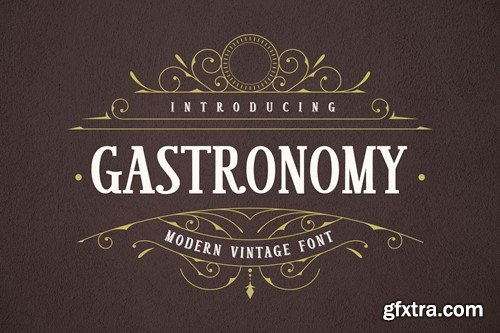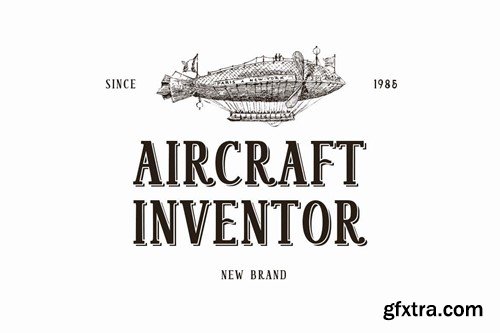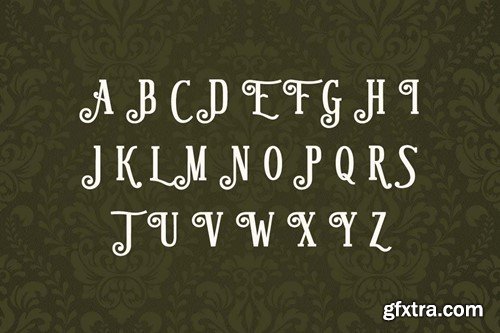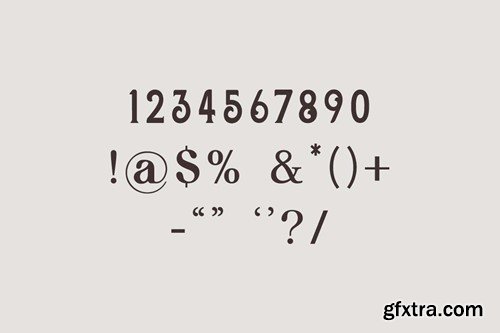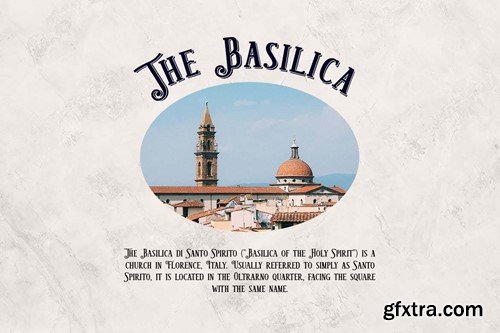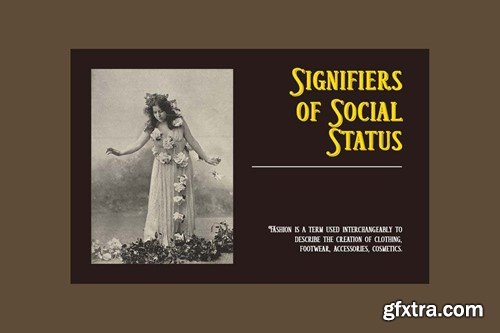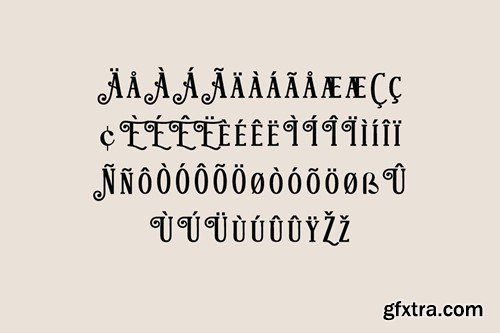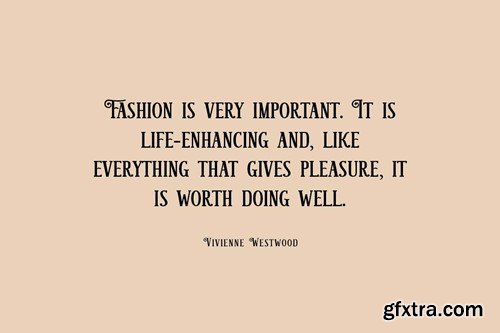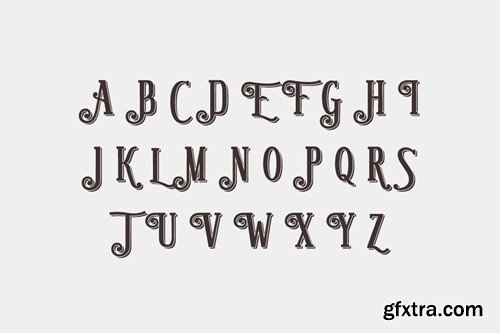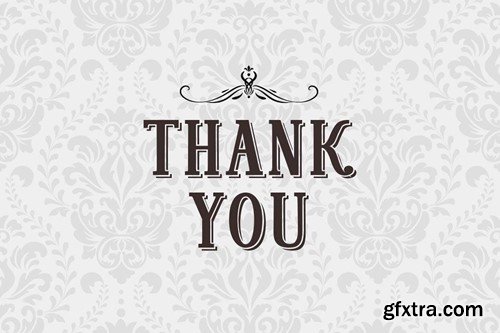
Gastronomy Modern Vintage Serif Font N7JMY3V
Gastronomy Modern Vintage Serif Font
Introducing our new product the name is Gastronomy Modern Vintage Serif Font. Gastronomy Modern Vintage Serif Font that feels beautiful classy, elegant, and modern. This font is ideally suited for a wide variety of projects, such as signature, stationery, logo, wedding, typography quotes, magazine or book covers, website headers, clothing, branding, packaging design, and more. Also, fashion-related branding or editorial design displays both masculine and feminine qualities.